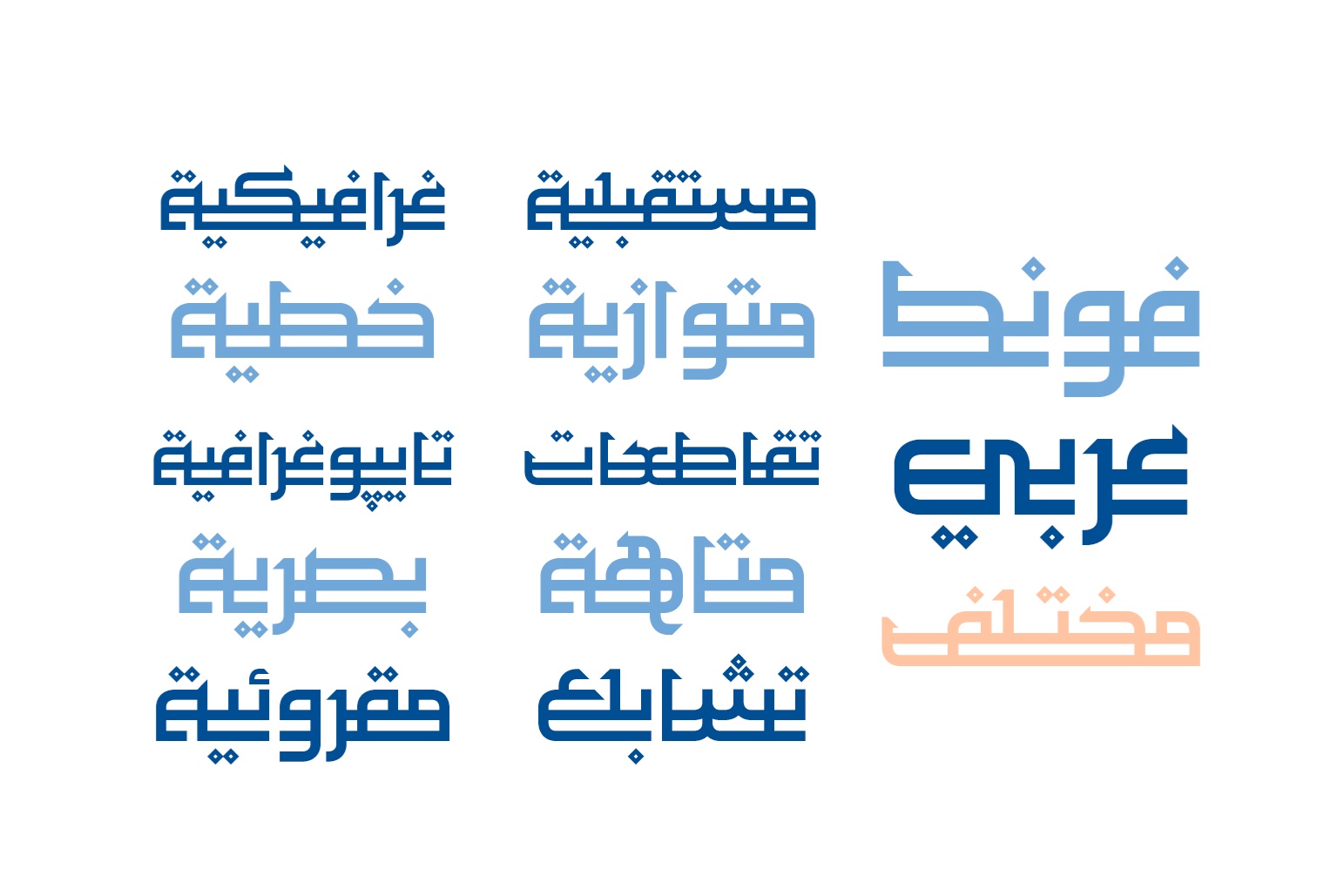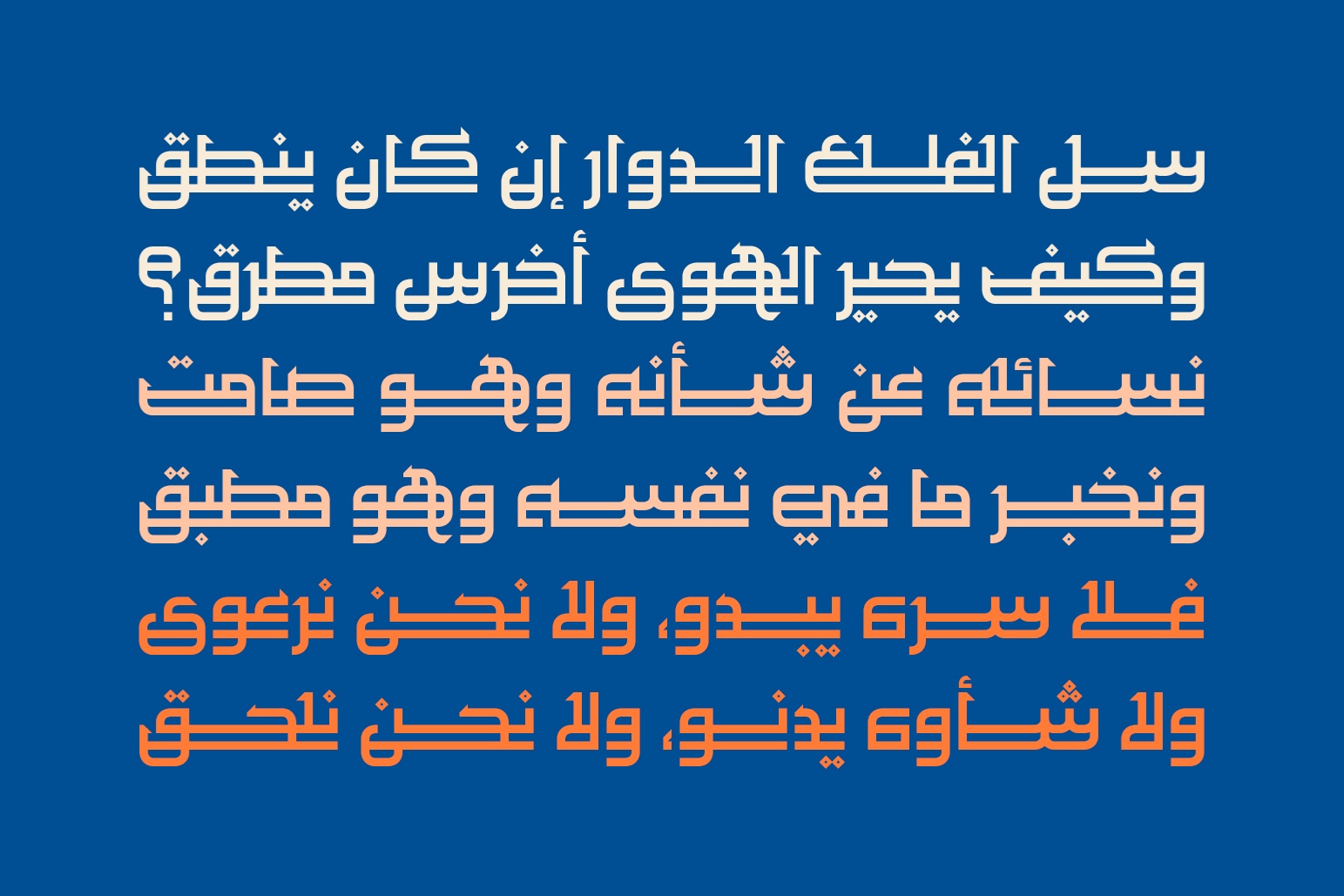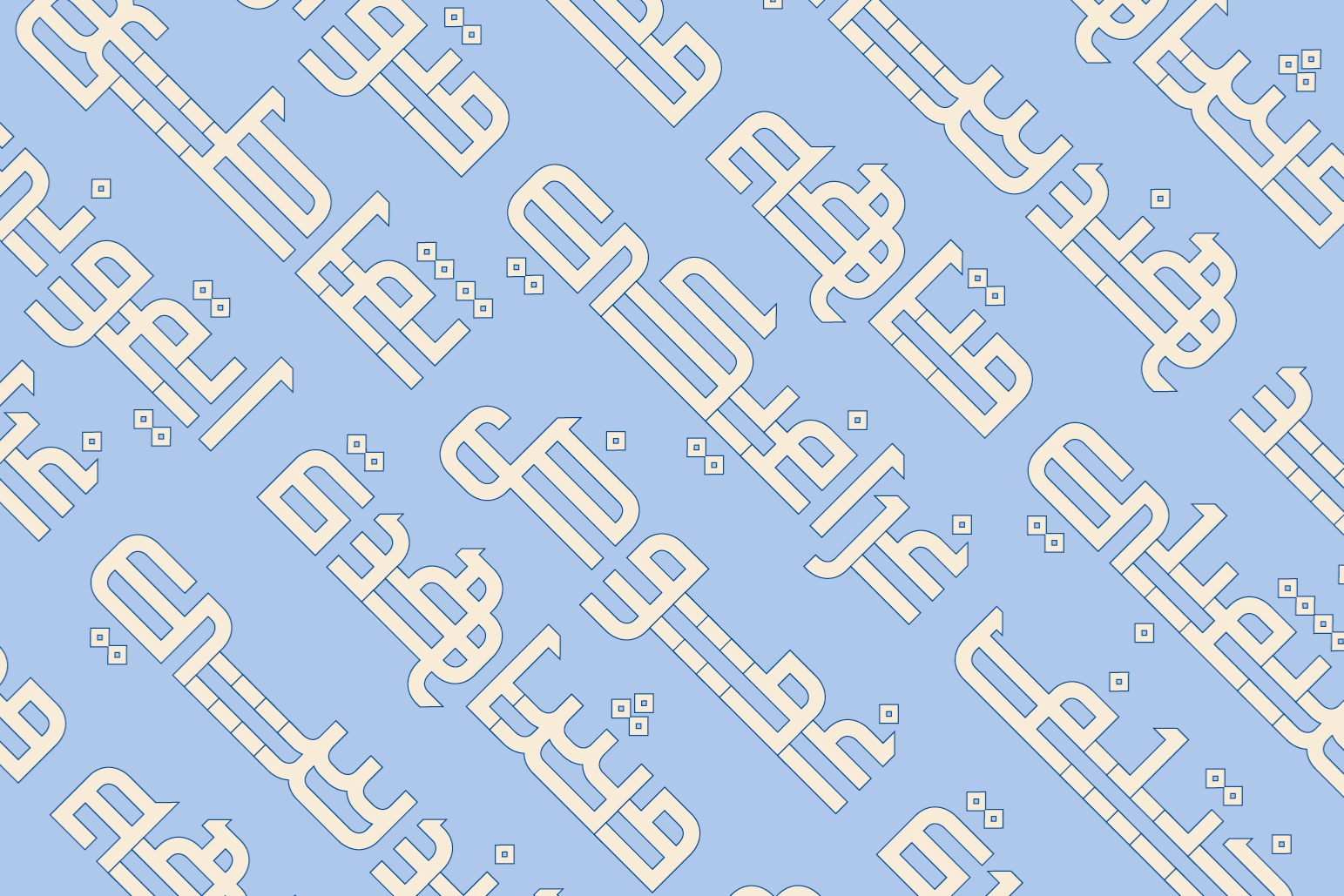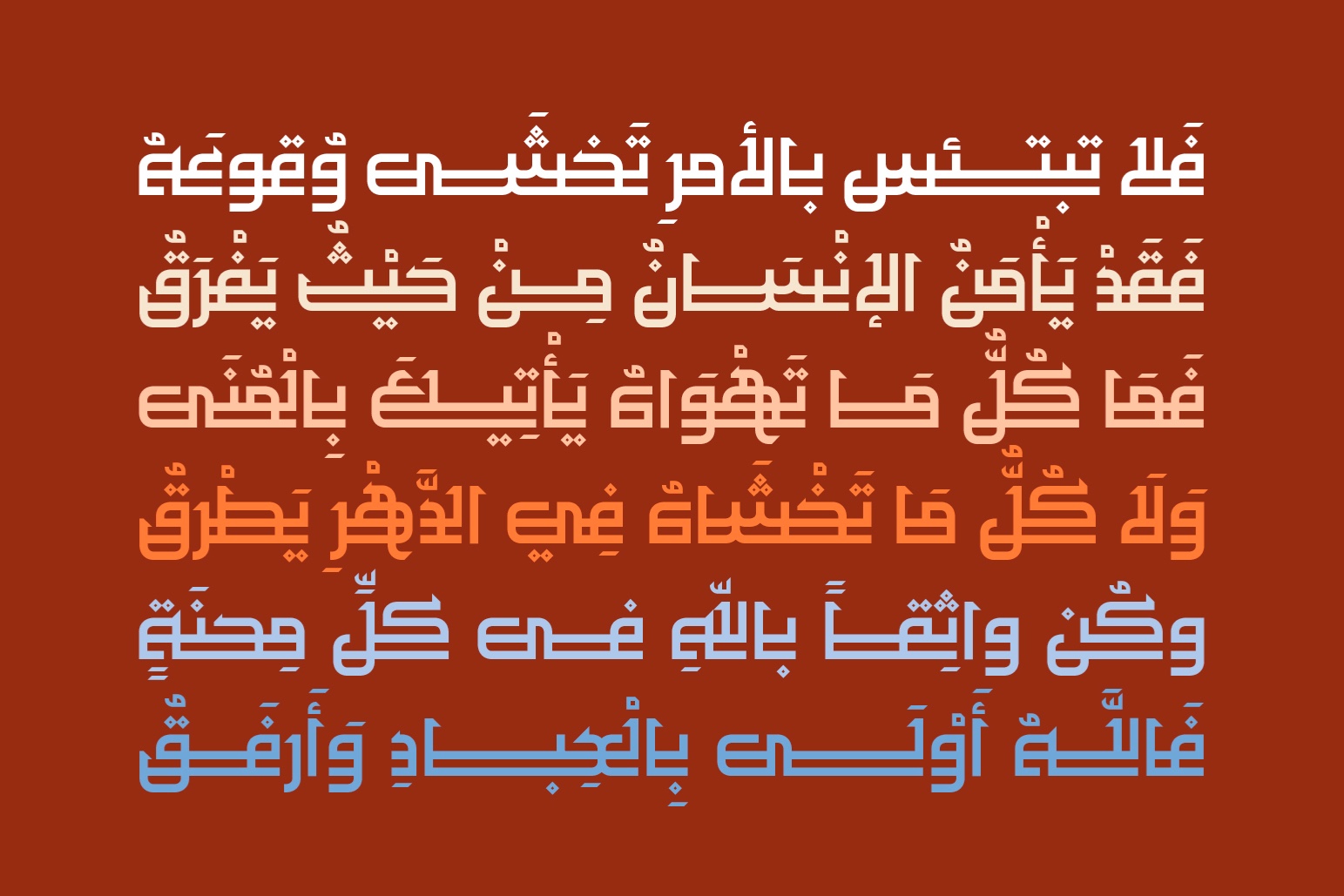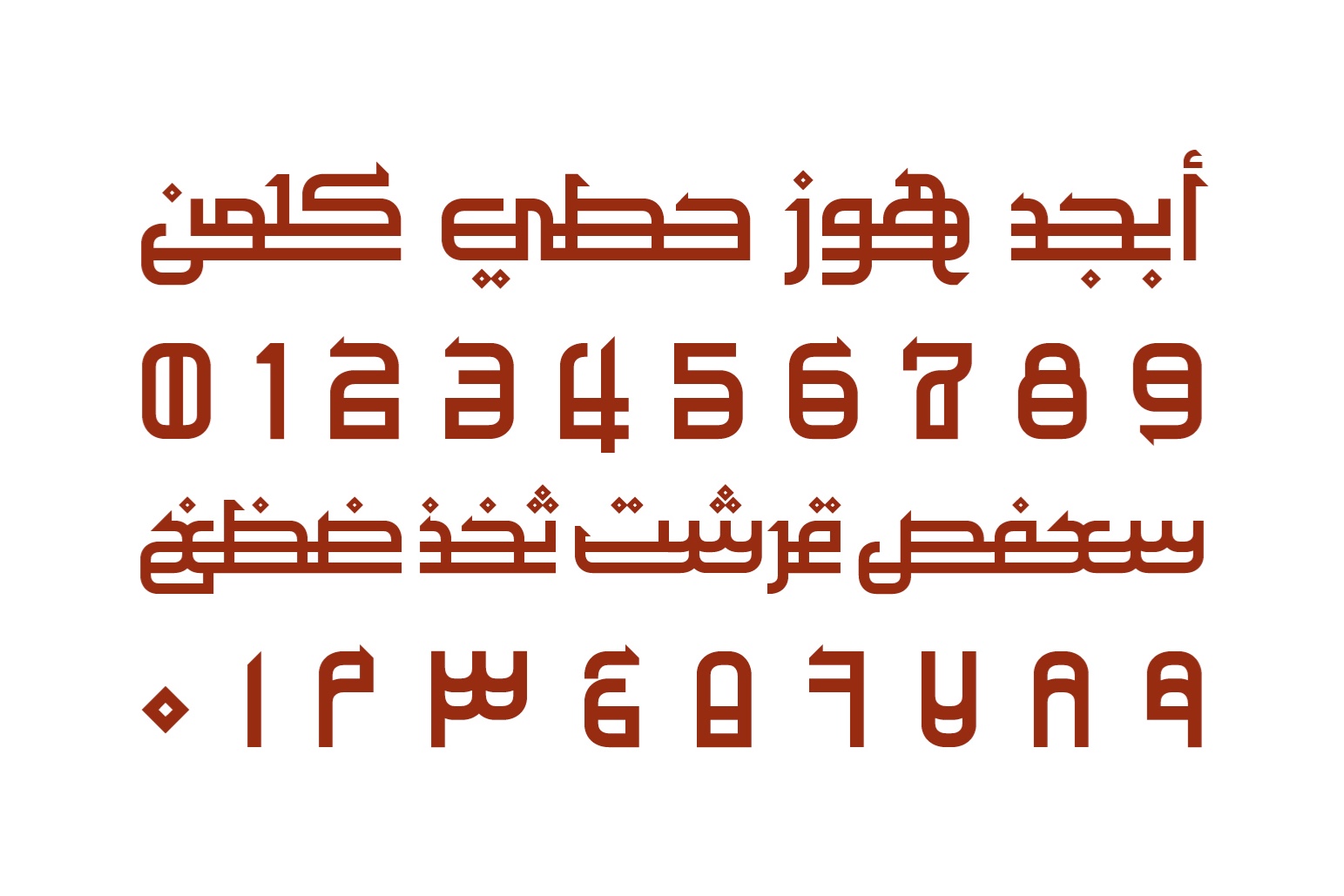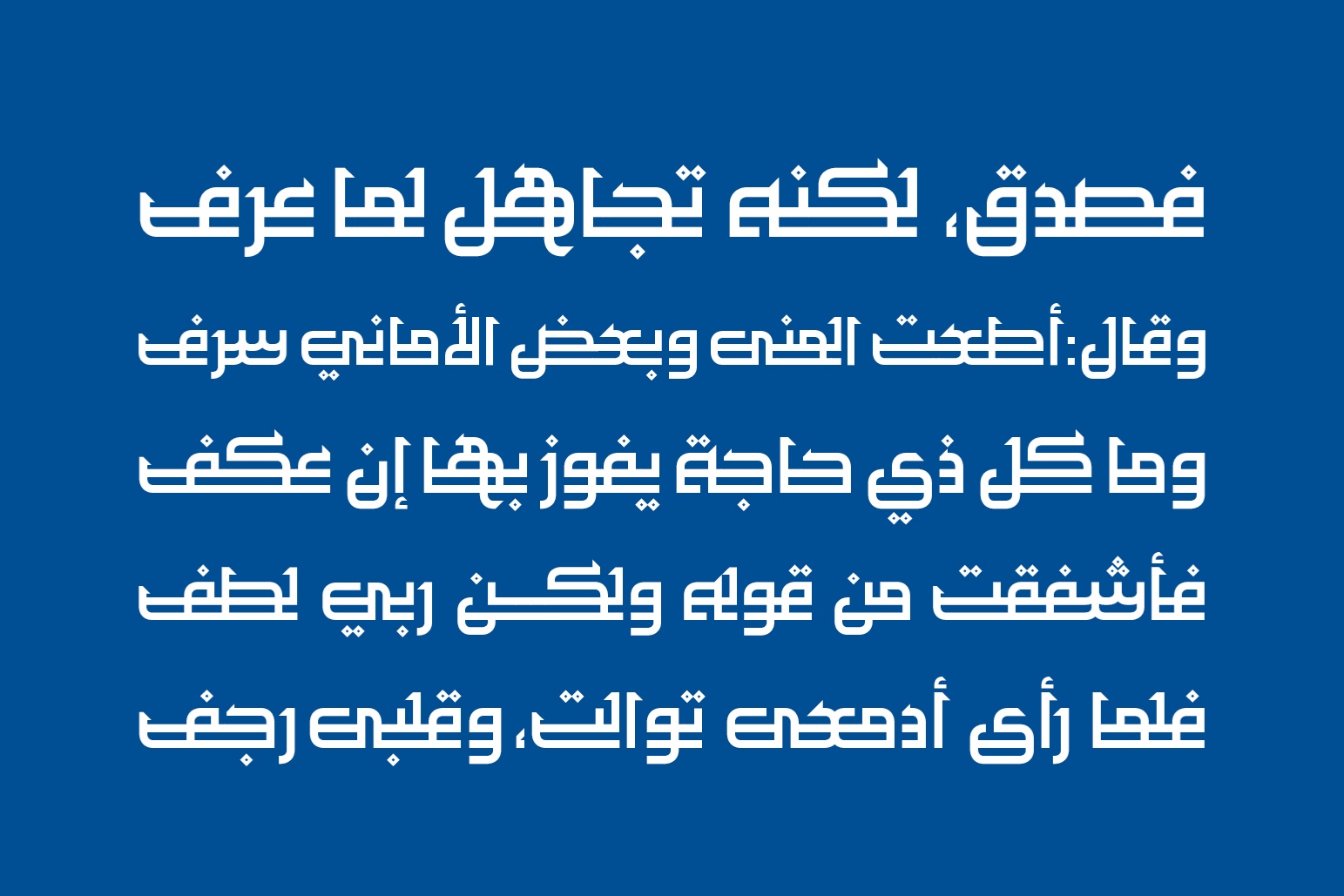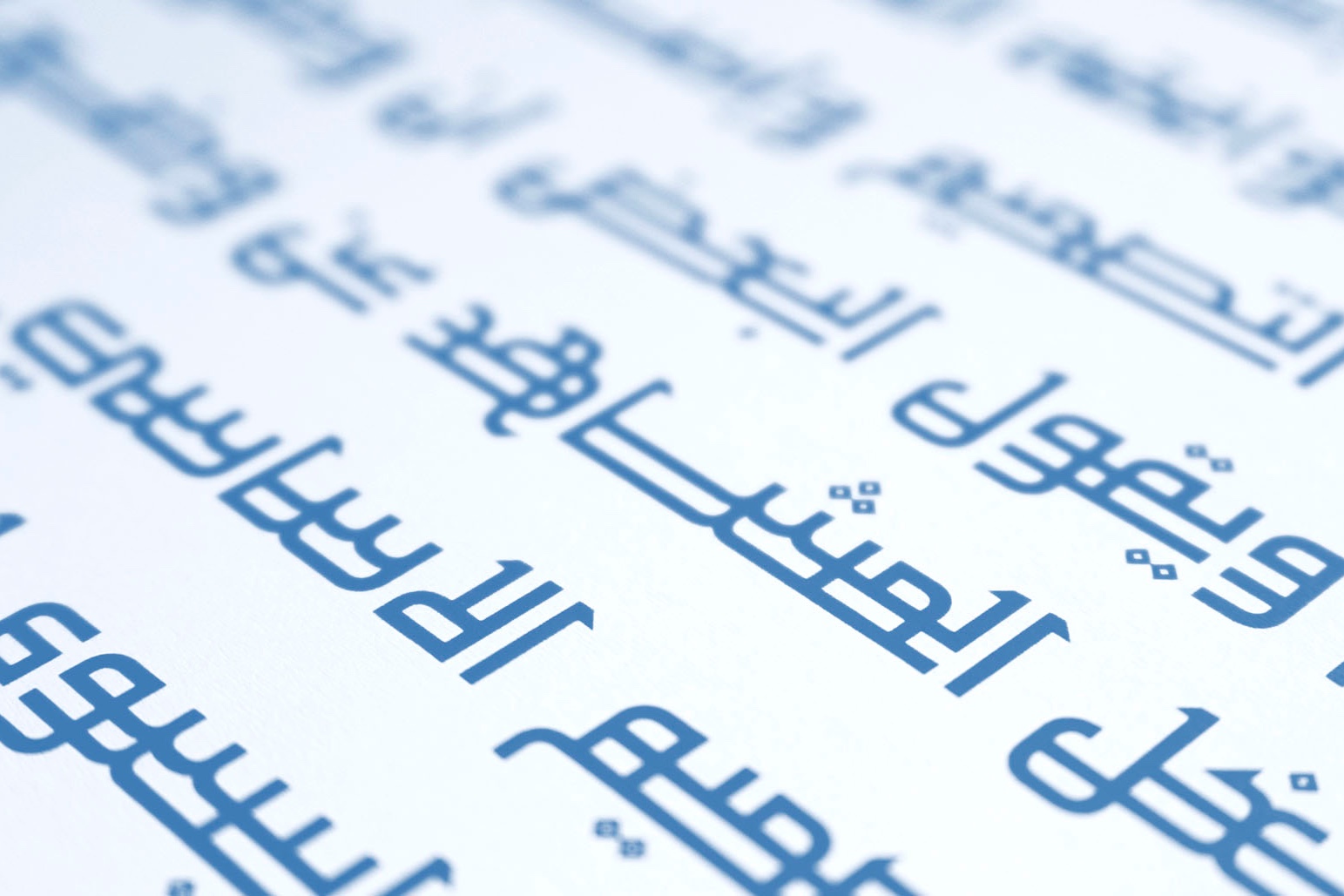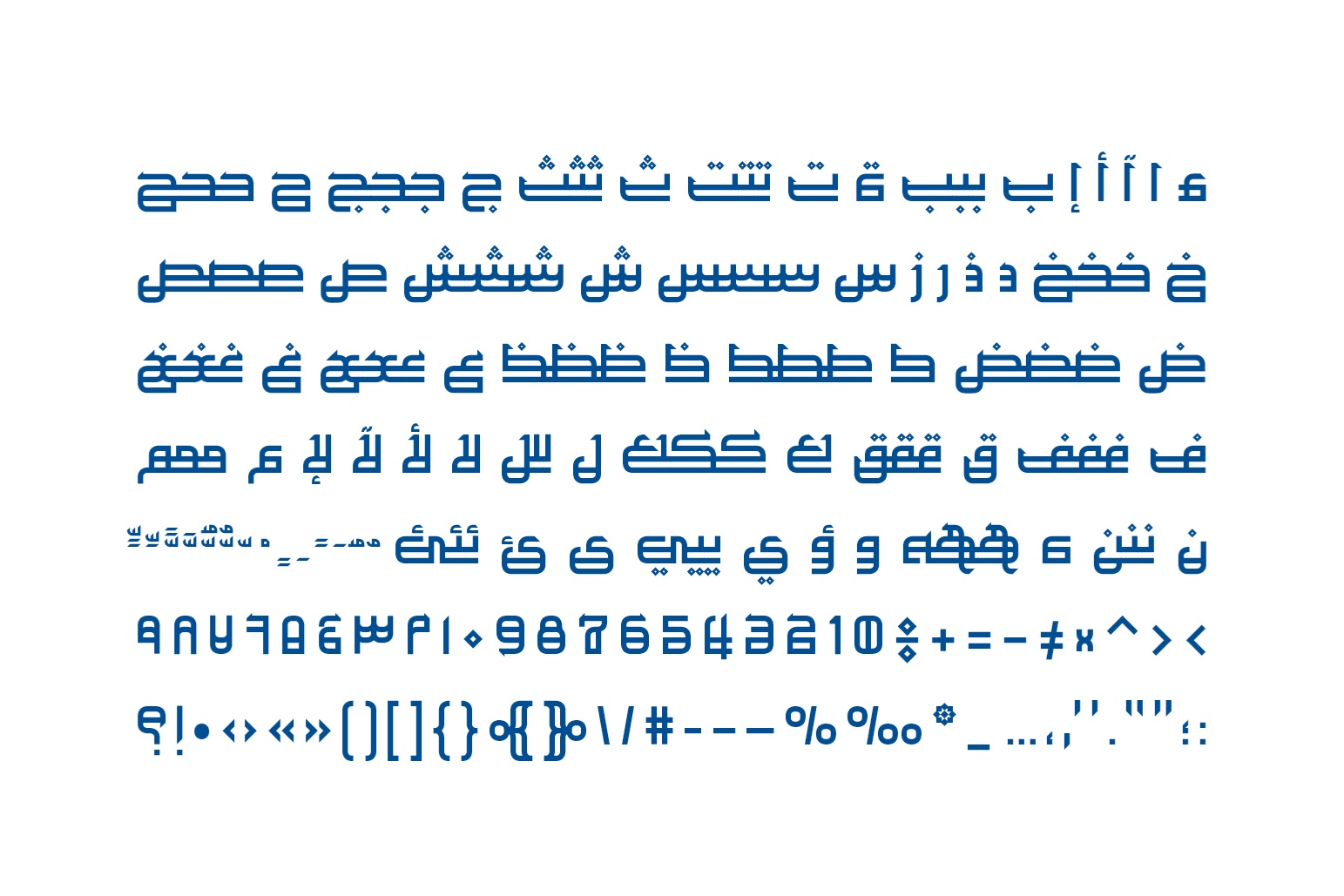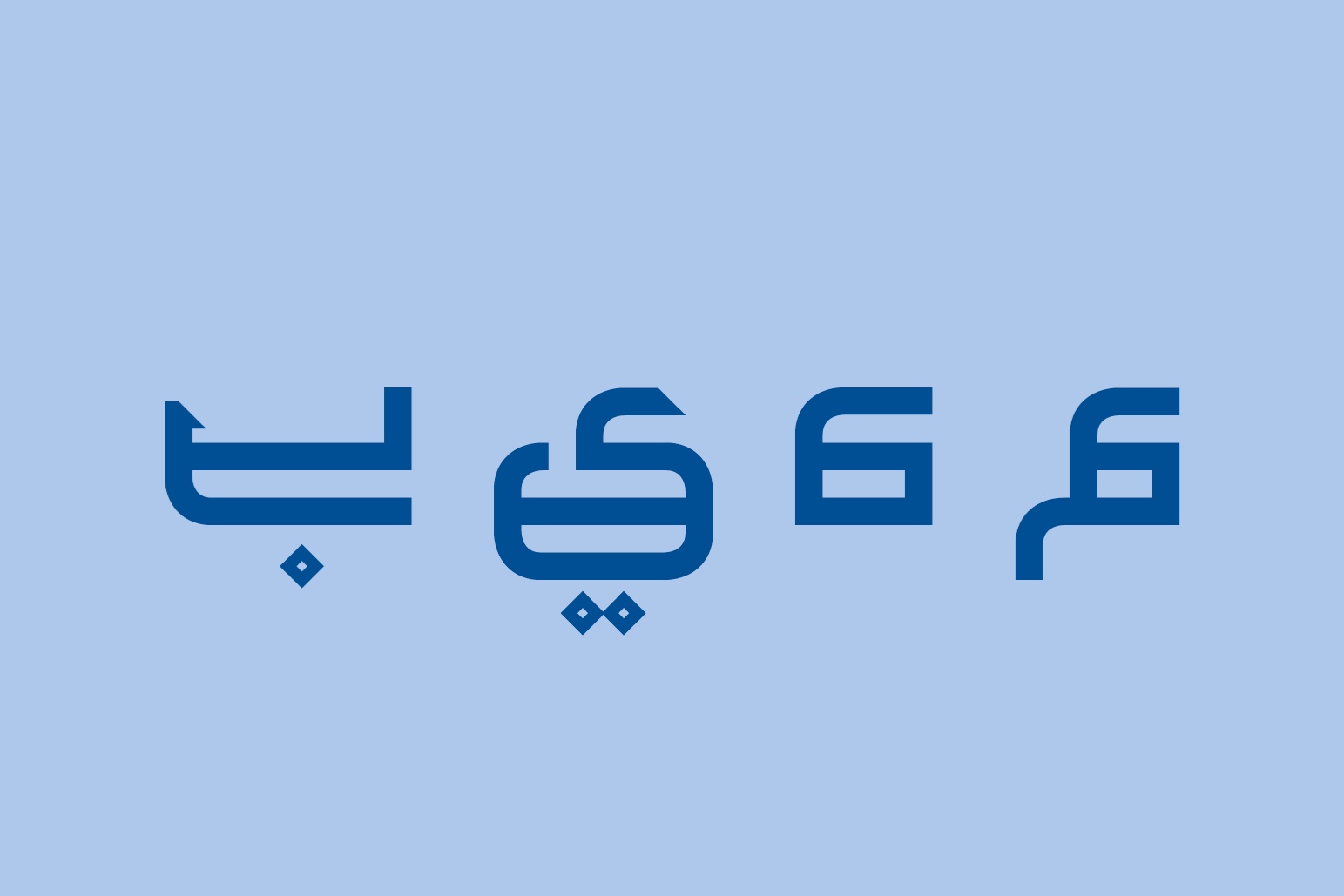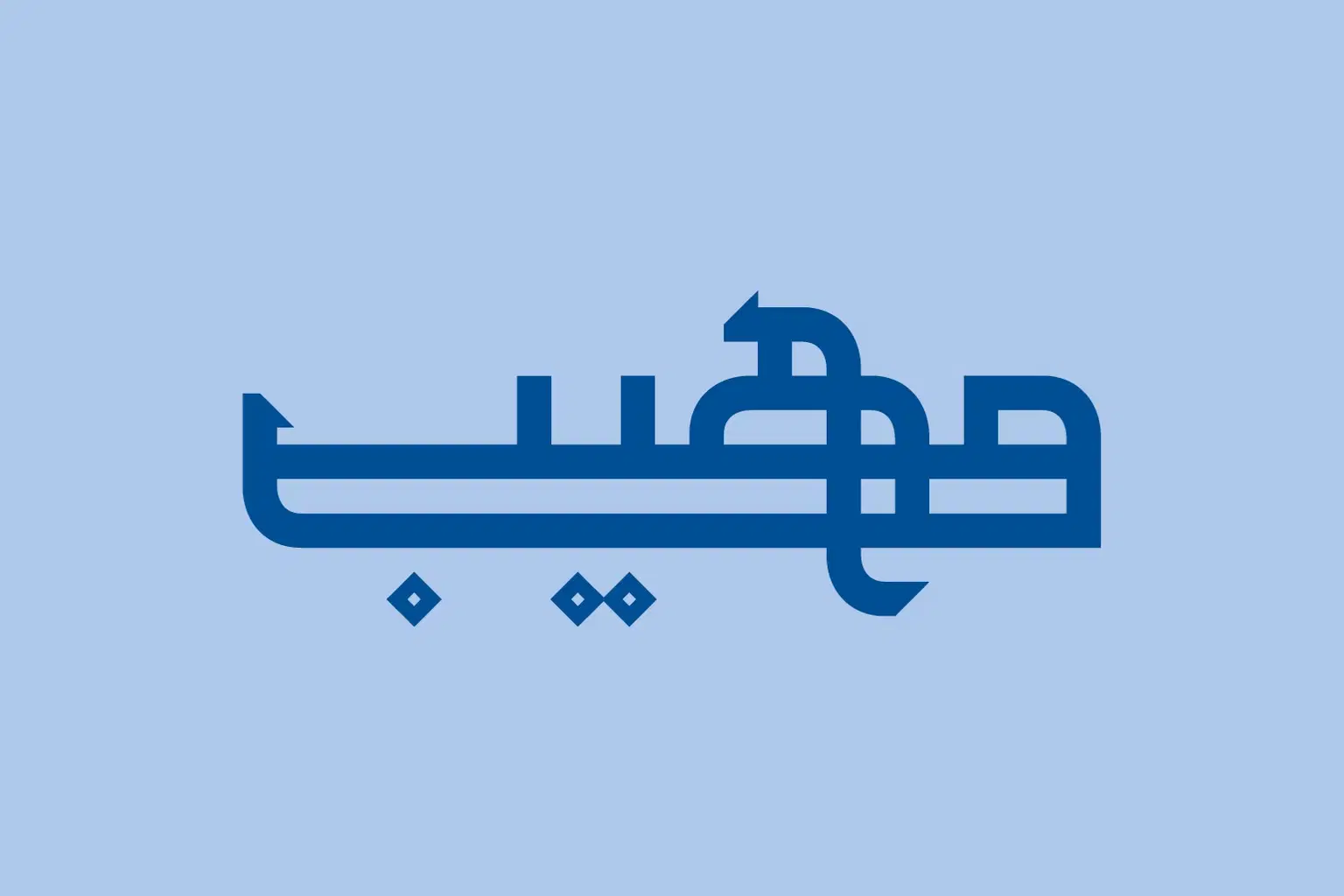
Maheeb, derived from the Arabic term for Majestic, is a striking Arabic display font featuring dual baselines and proportionate letterforms with sharp terminals. Its uniqueness makes it ideal for a wide array of applications, from print to web design and advertising.